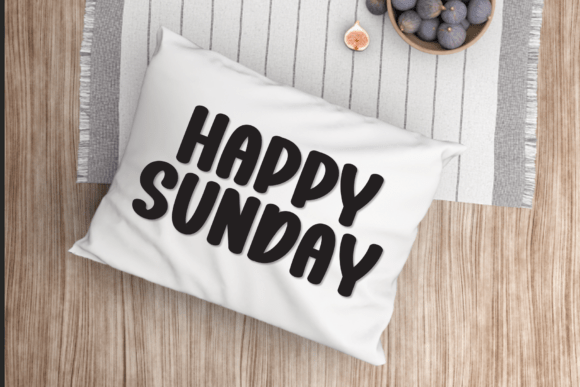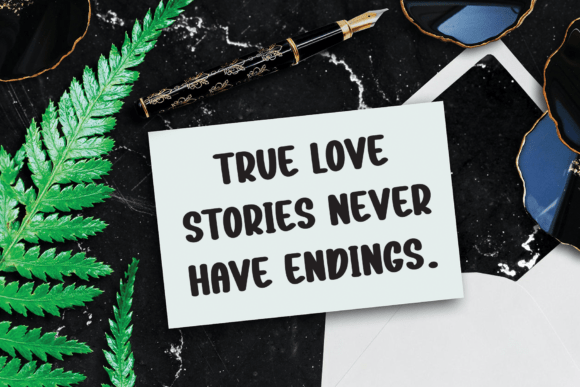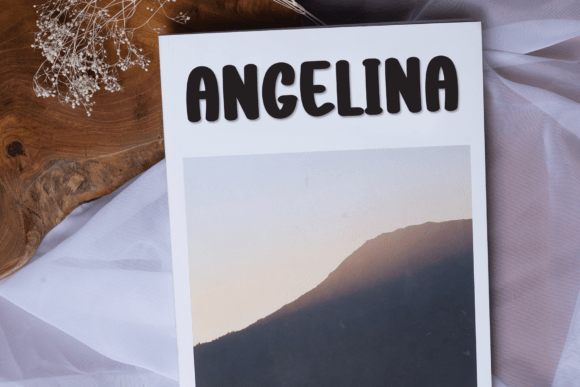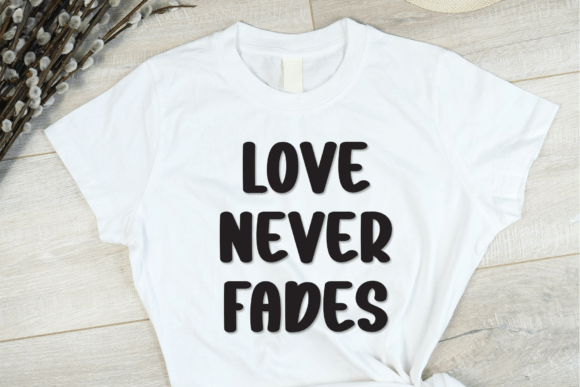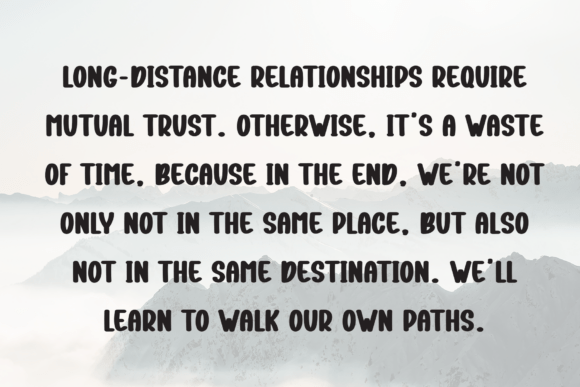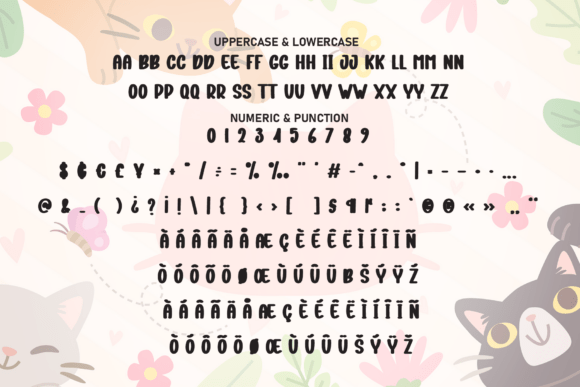
Introducing the Cute Cat Font: Add a Touch of Whimsy to Your Designs
Are you tired of using the same old fonts in your designs? Do you want to add a touch of personality and whimsy to your projects? Look no further than the Cute Cat Font! This adorable font is perfect for designers and crafters who want to create unique and eye-catching designs that will stand out from the crowd.
What Makes the Cute Cat Font So Special?
The Cute Cat Font is a special creative product that is designed to give you an extraordinary experience. With its latest style letters, this font is perfect for a variety of projects, including wall displays, wedding invitations, social media post logos, advertisements, product packaging, product designs, labels, photography, watermarks, invitations, stationery, and any project that requires tasteful handwriting.
The Cute Cat Font is incredibly versatile and can be used in a wide range of design projects. Here are just a few ideas to get you started:
- Wedding Invitations: Add a touch of whimsy to your wedding invitations and make them truly unforgettable.
- Social Media Post Logos: Create eye-catching social media post logos that will help your brand stand out from the crowd.
- Product Packaging: Add a personal touch to your product packaging and make it more appealing to customers.
- Wall Displays: Create beautiful wall displays that will add a touch of personality to any room.
- Stationery: Create custom stationery that will make your letters and notes truly special.
Why Choose the Cute Cat Font?
There are many fonts on the market, but the Cute Cat Font stands out from the rest. Here are just a few reasons why:
- Unique and Eye-Catching: The Cute Cat Font is truly one-of-a-kind and will add a touch of personality to any design.
Tips for Using the Cute Cat Font
Here are a few tips for getting the most out of the Cute Cat Font:
- Experiment with Different Sizes: The Cute Cat Font looks great in a variety of sizes, so don’t be afraid to experiment and find the perfect size for your project.
- Pair with Other Fonts: The Cute Cat Font pairs well with a variety of other fonts, so try pairing it with some of your favorite fonts to create a unique look.
- Use in Combination with Images: The Cute Cat Font looks great in combination with images, so try using it to add a touch of personality to your photos and illustrations.